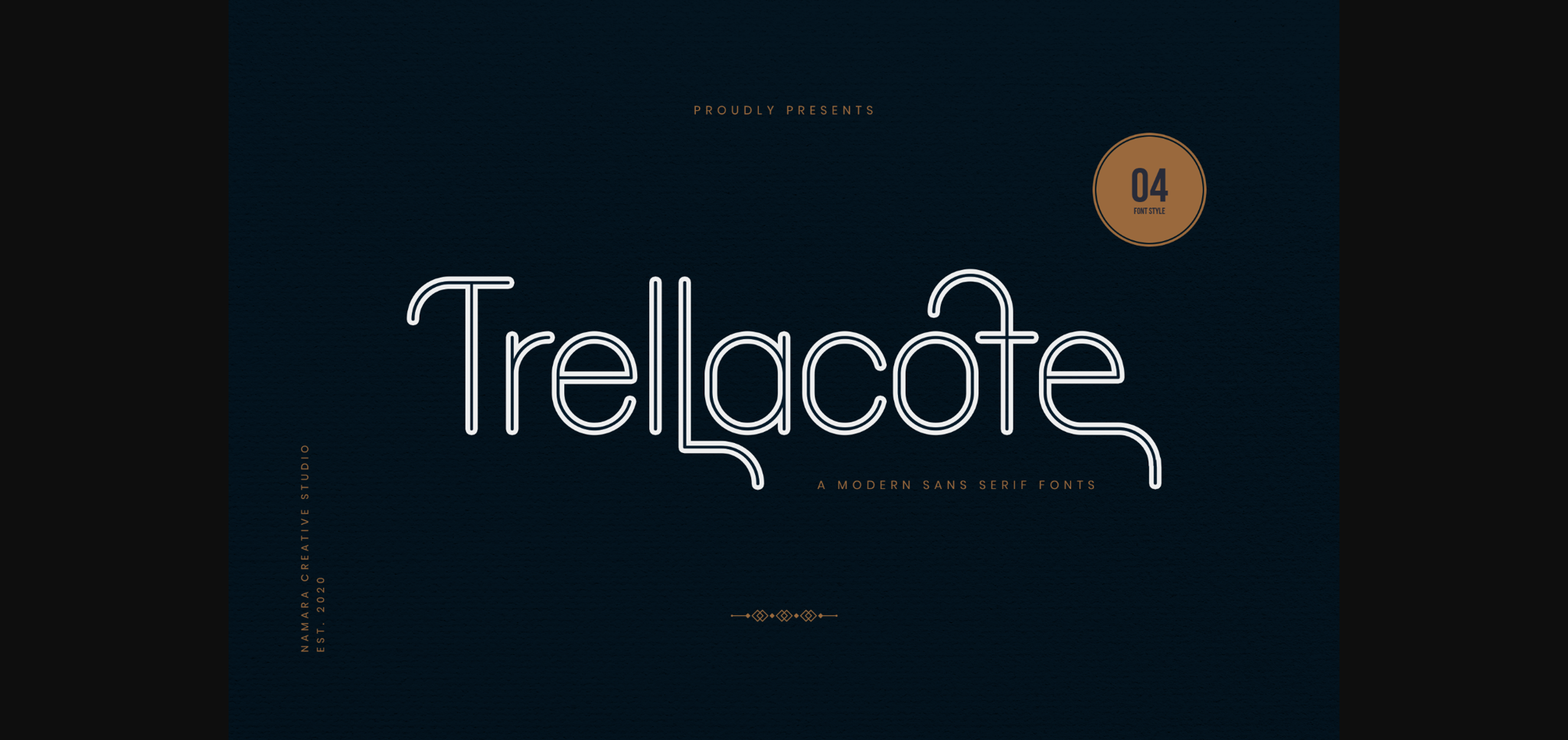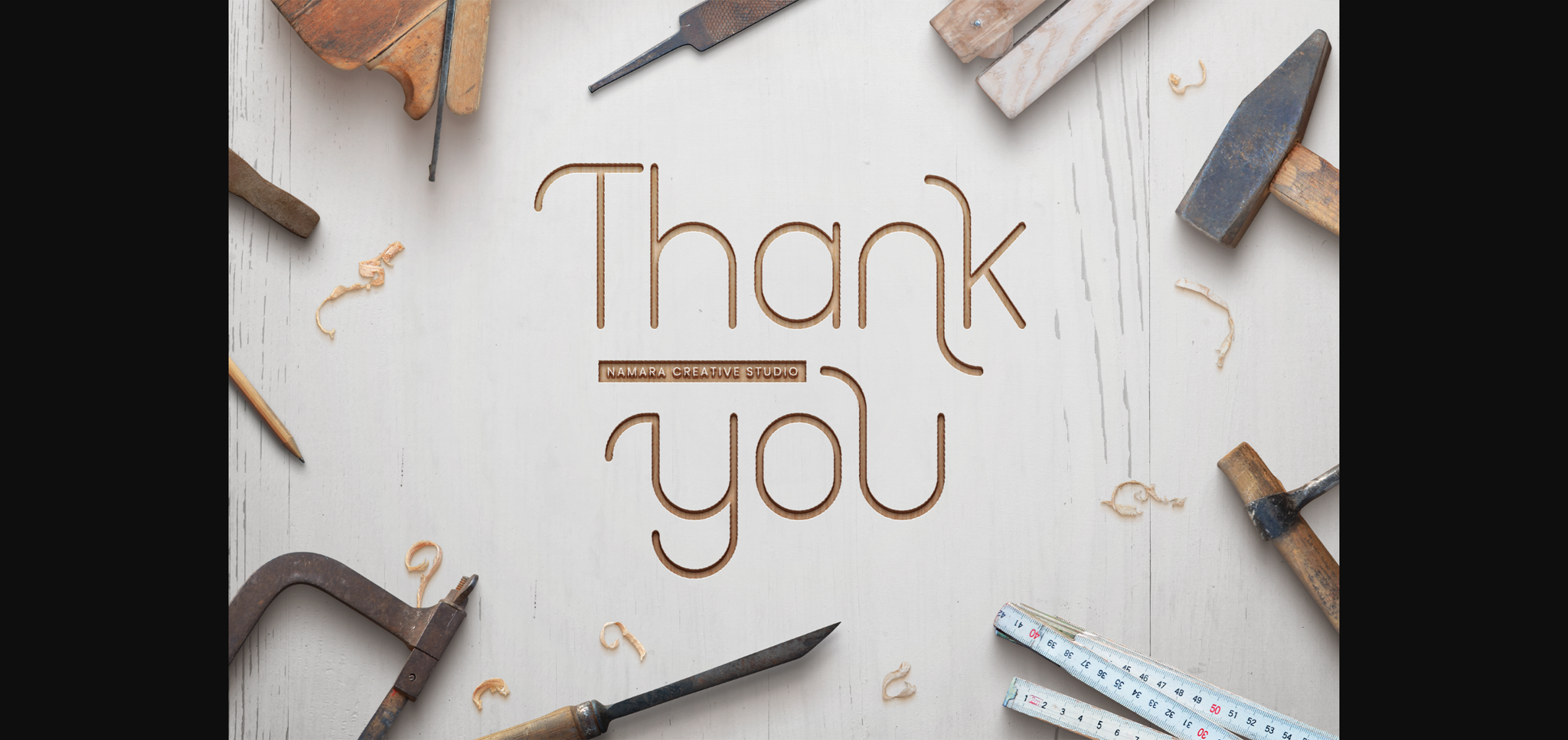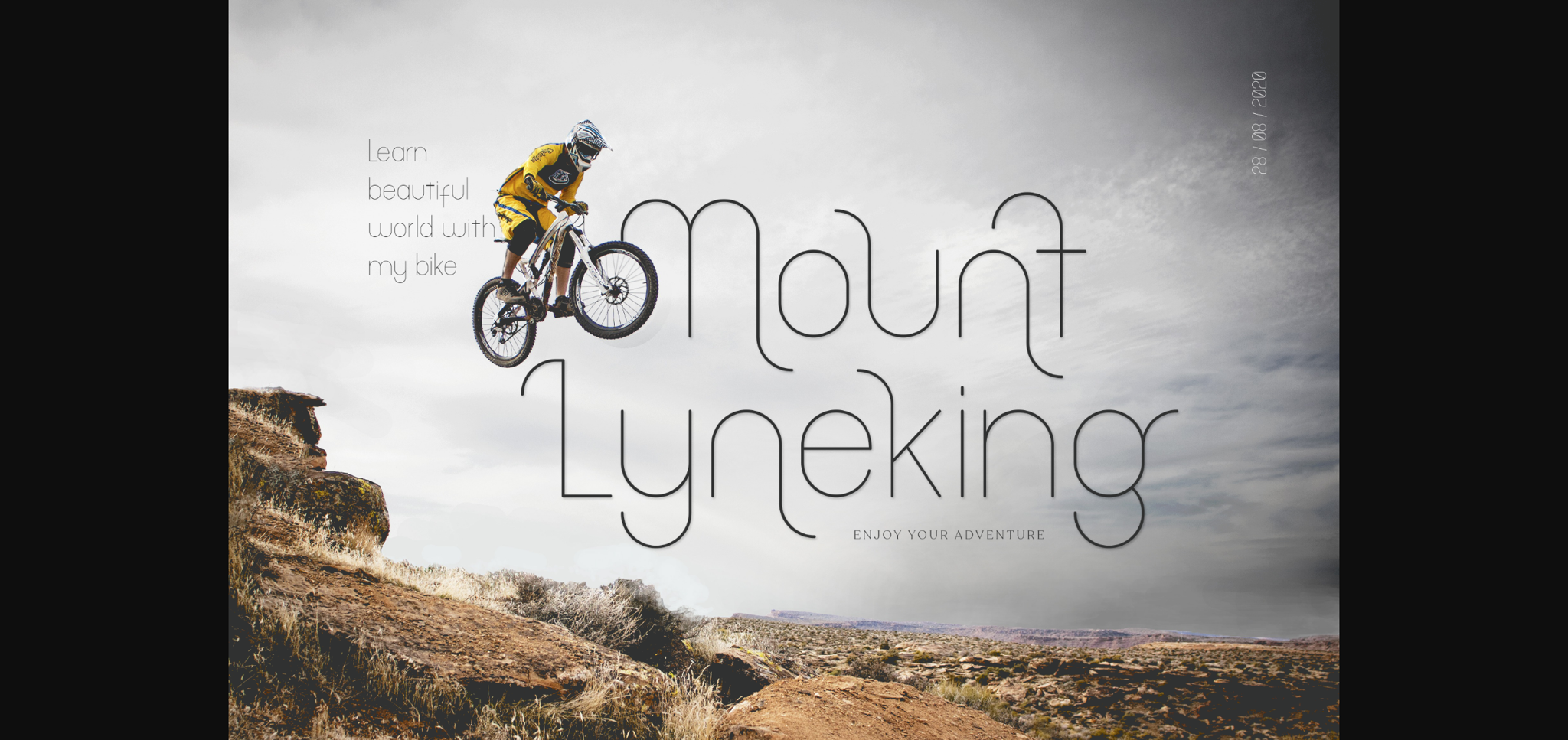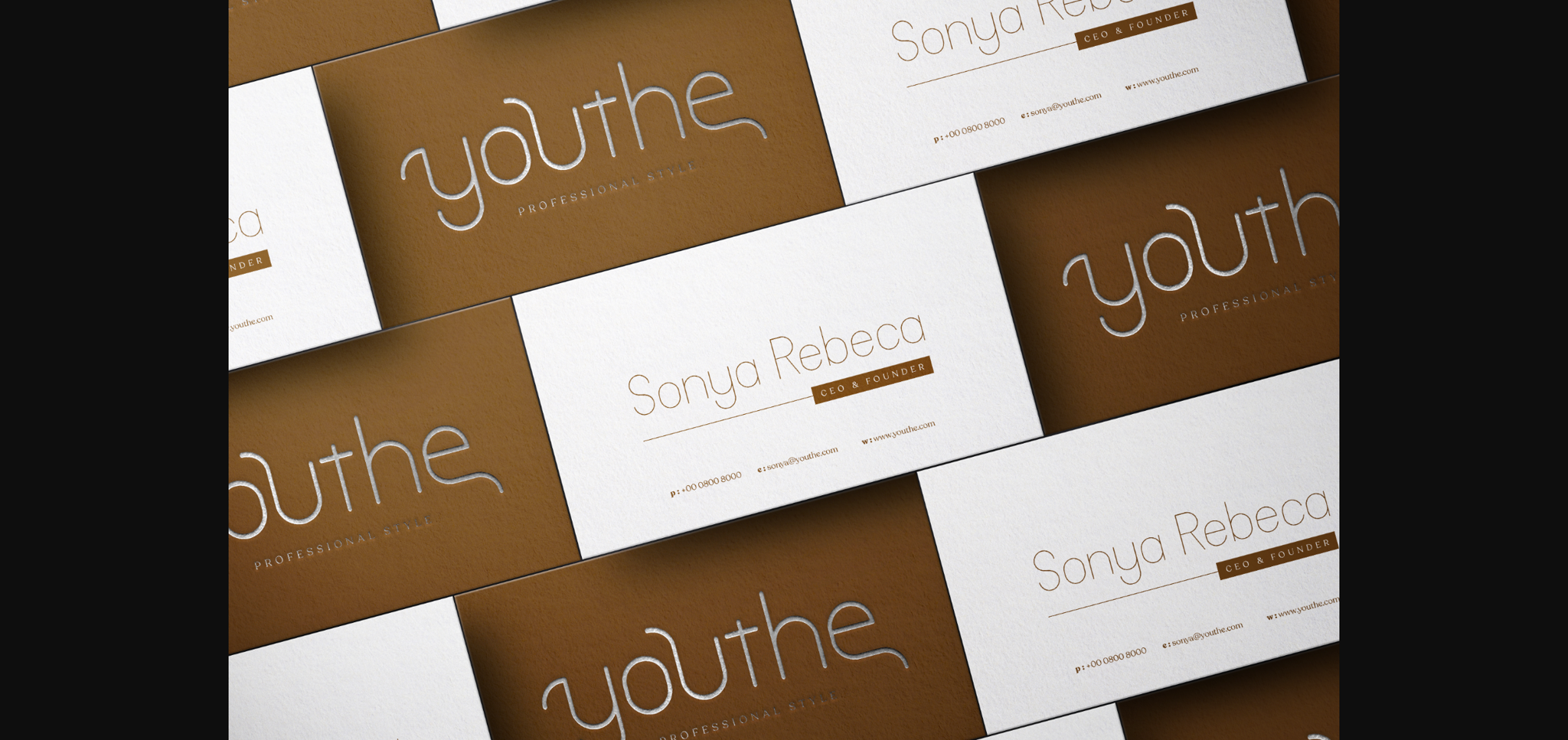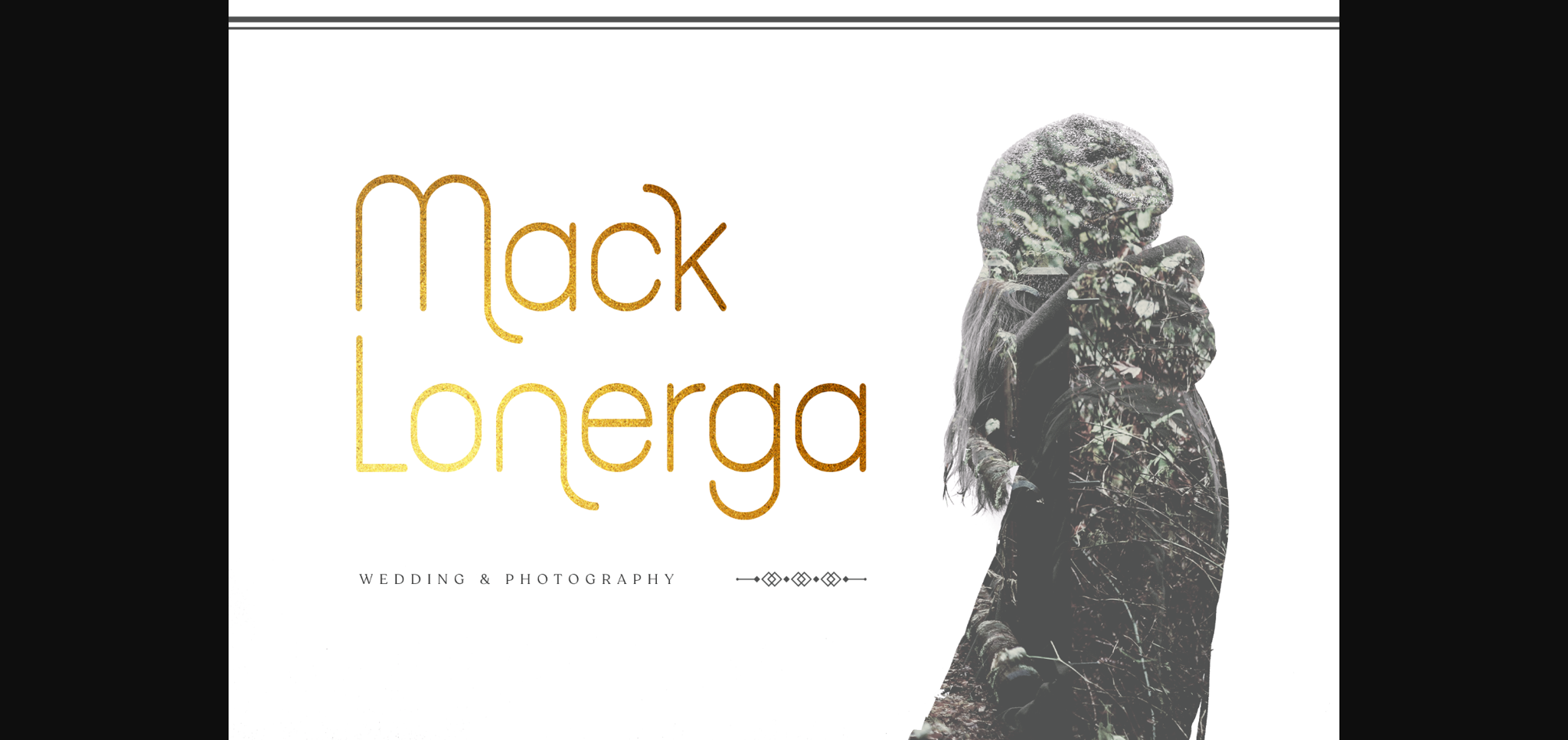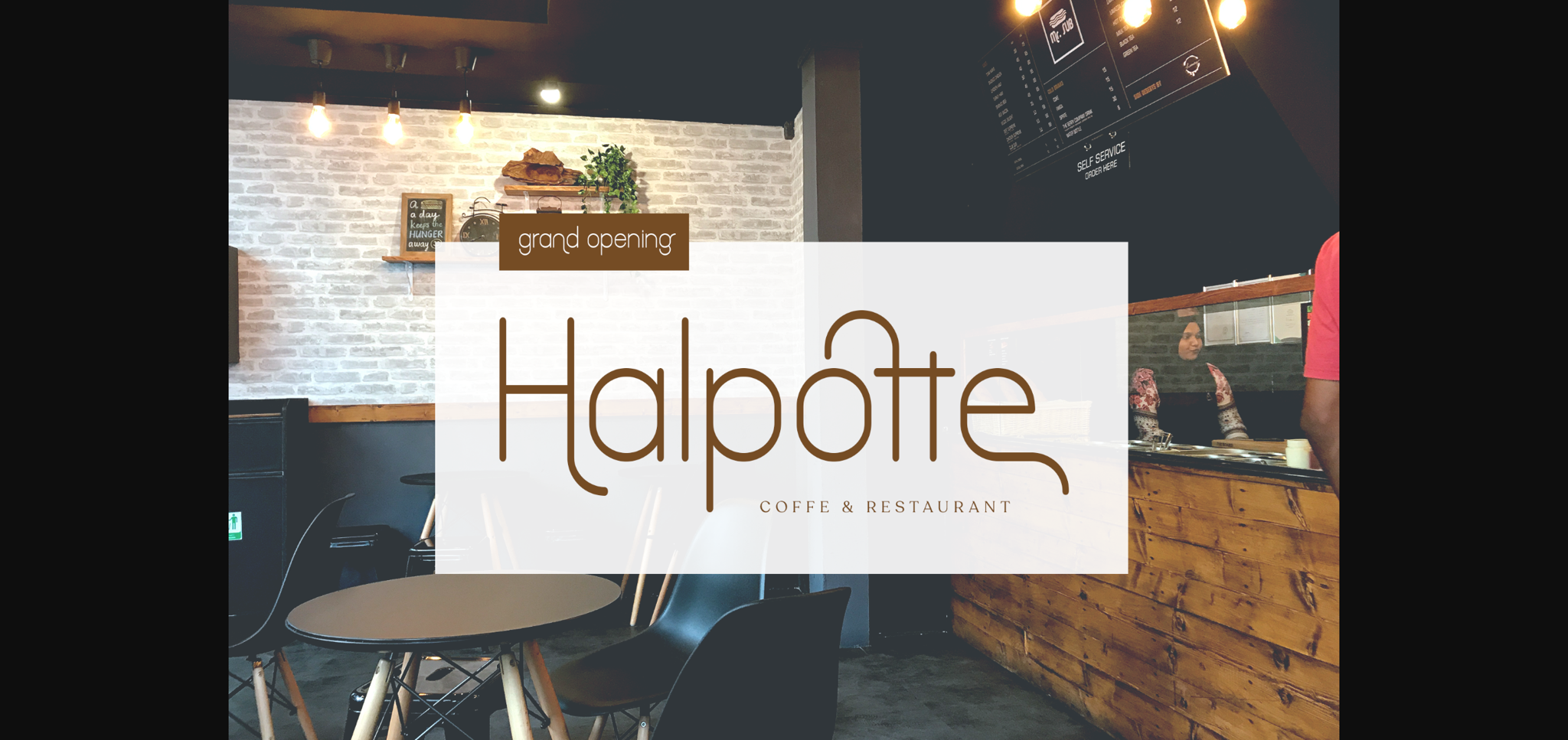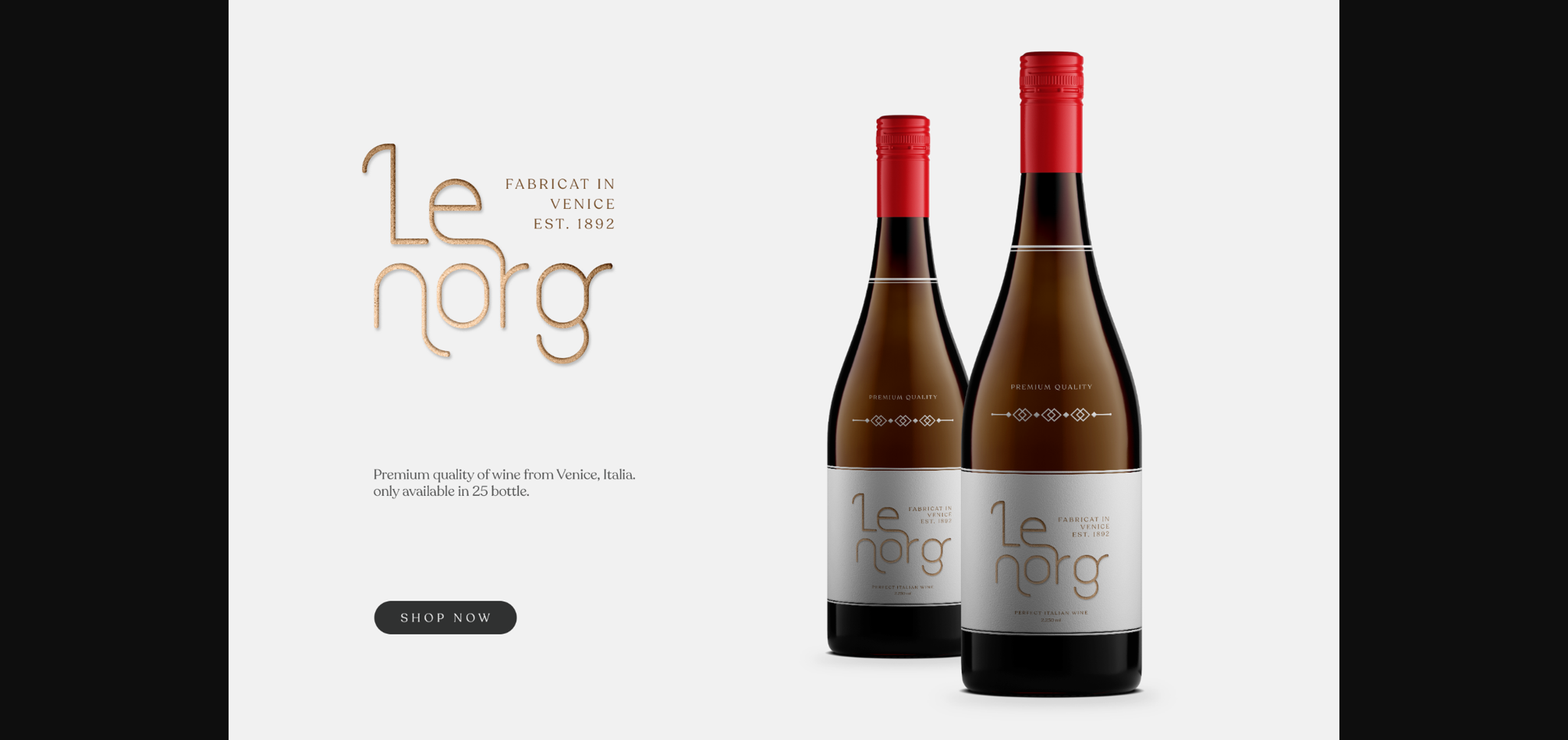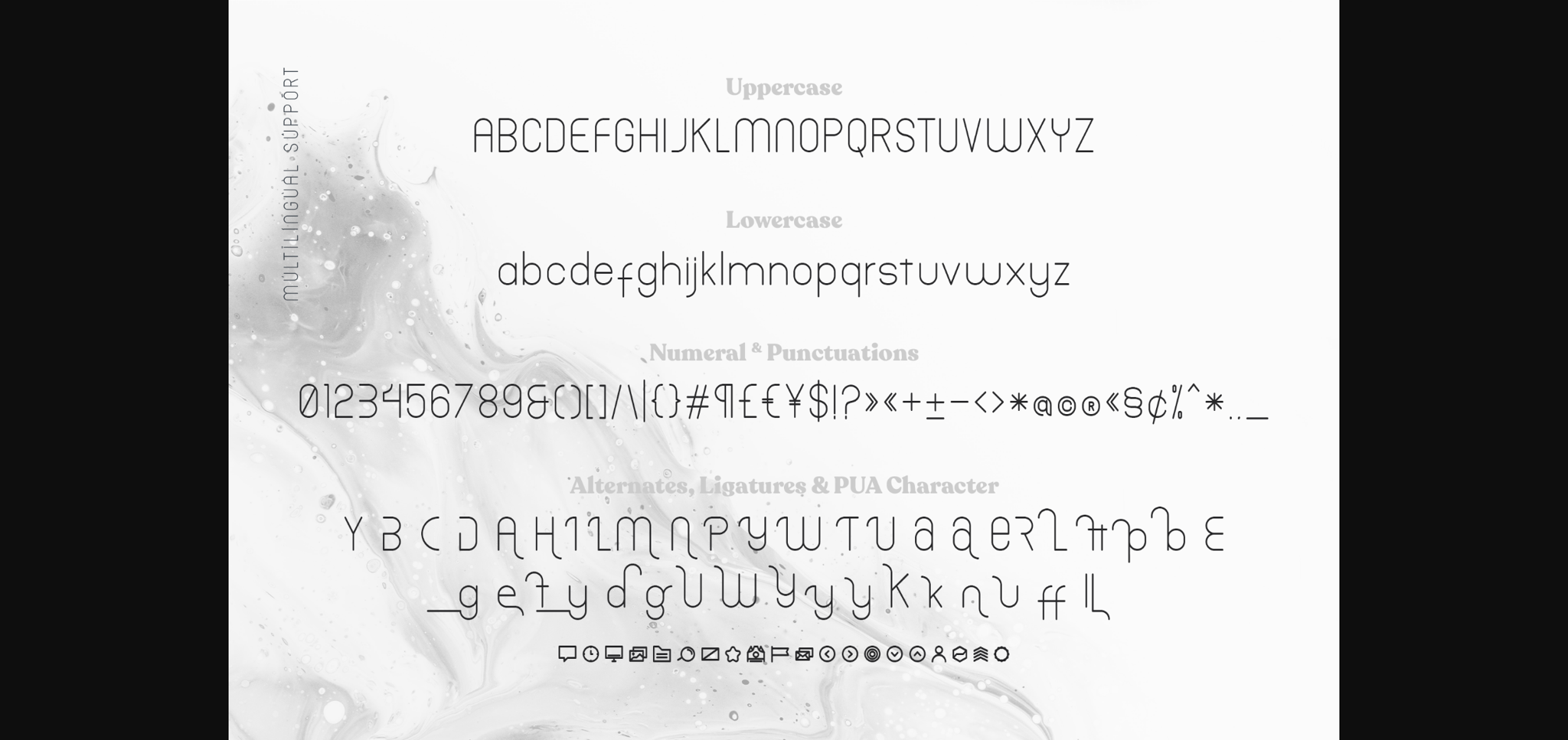
Trellacote Font
About Trellacote Font
Trellacote is a modern and unique sans serif font with an undeniably clean feel. With its neat and beautiful arrangement of letters, this typeface will look outstanding in both formal and non-formal designs.